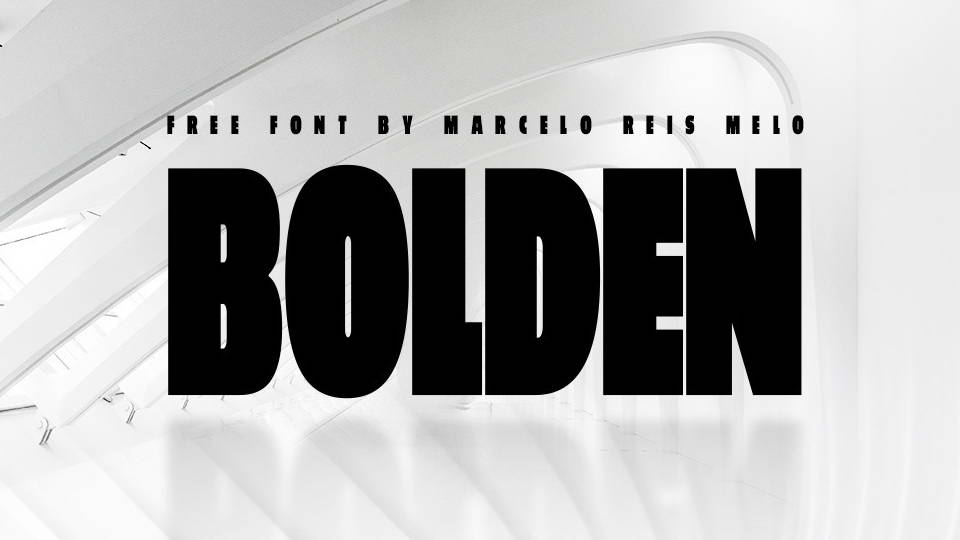
Bolden Typeface
Introducing Bolden Font! It is designed by Marcelo Reis Melo. There is not bolder than Bolden, a great geometric designed font, perfect for powerful headlines and great statement. Bolden perfect for signature logos, invitation cards, business cards, inspirational quotes, posters, blog headers, wedding design, packaging, wall art, custom printables and a lot more!